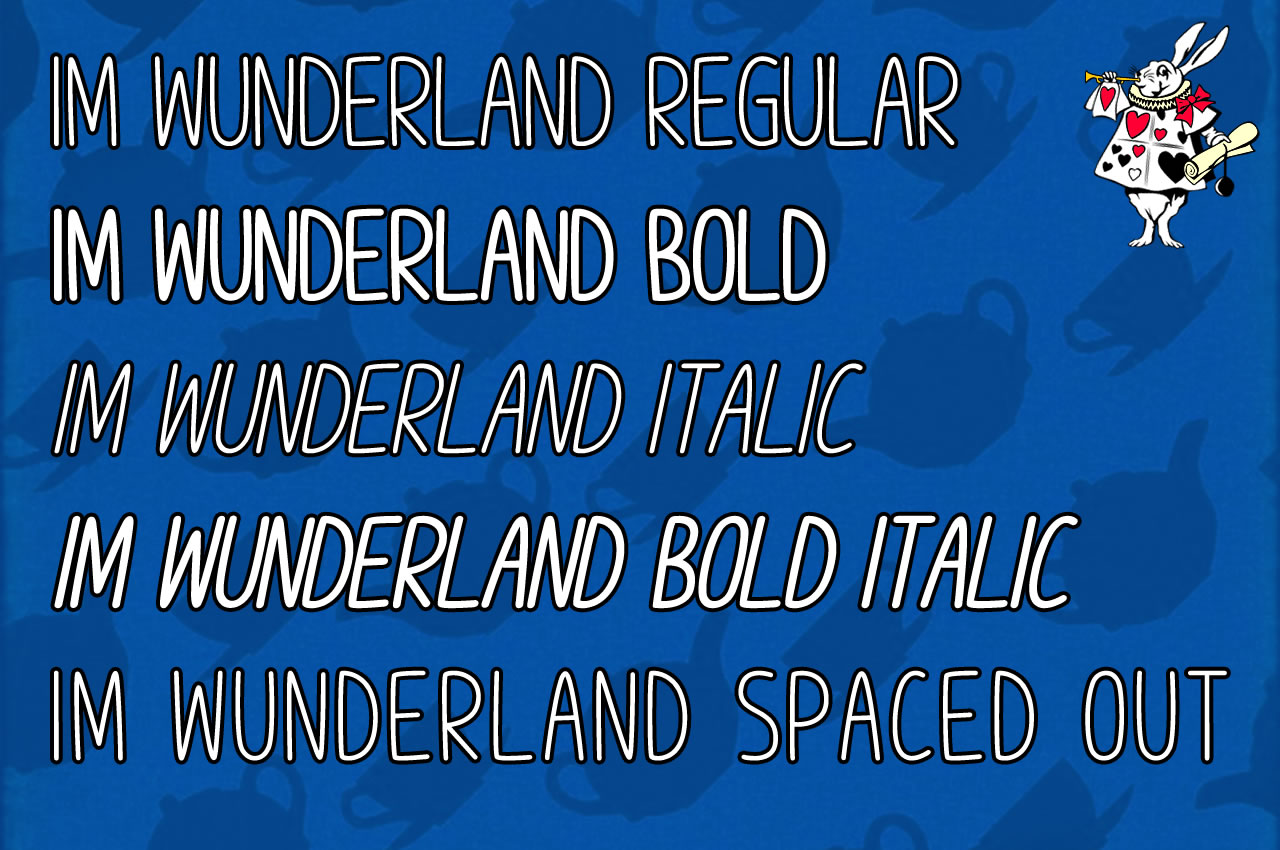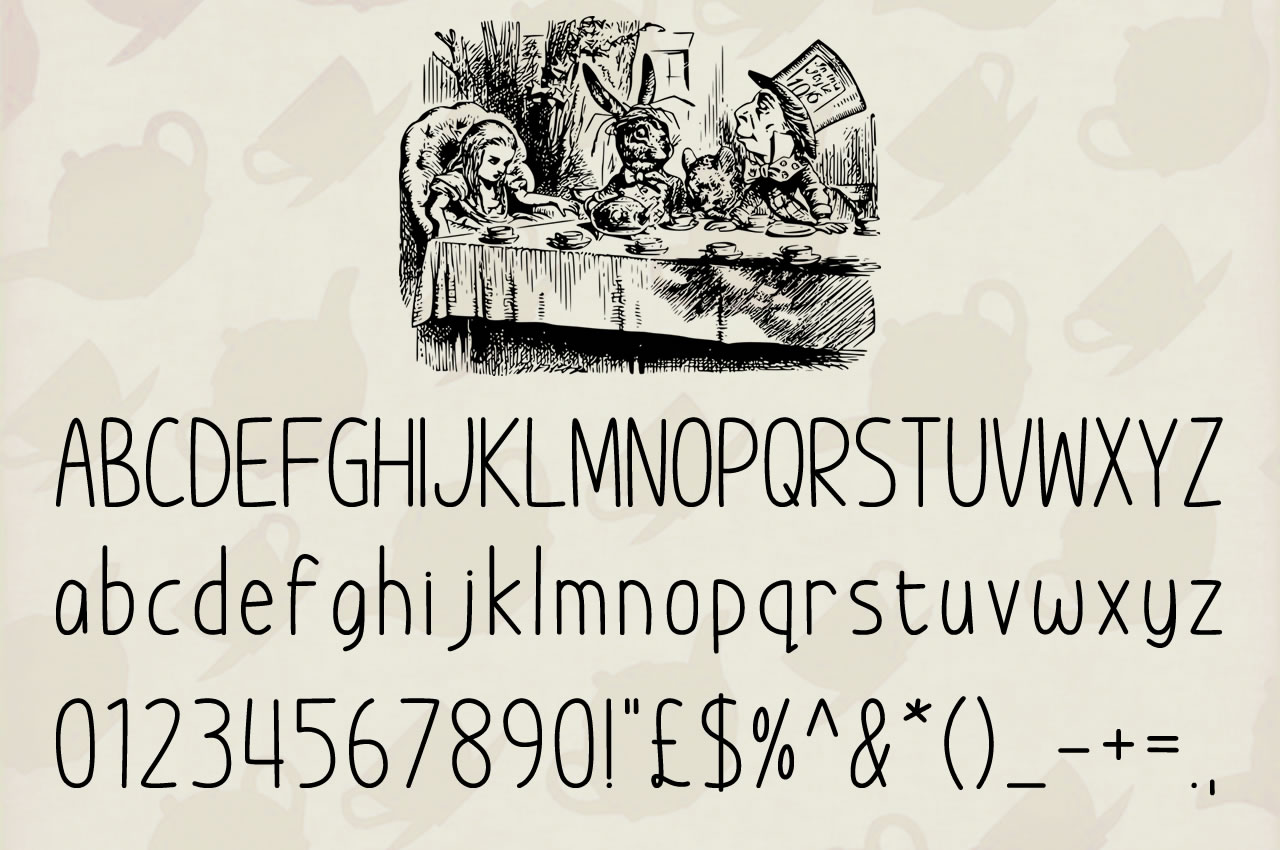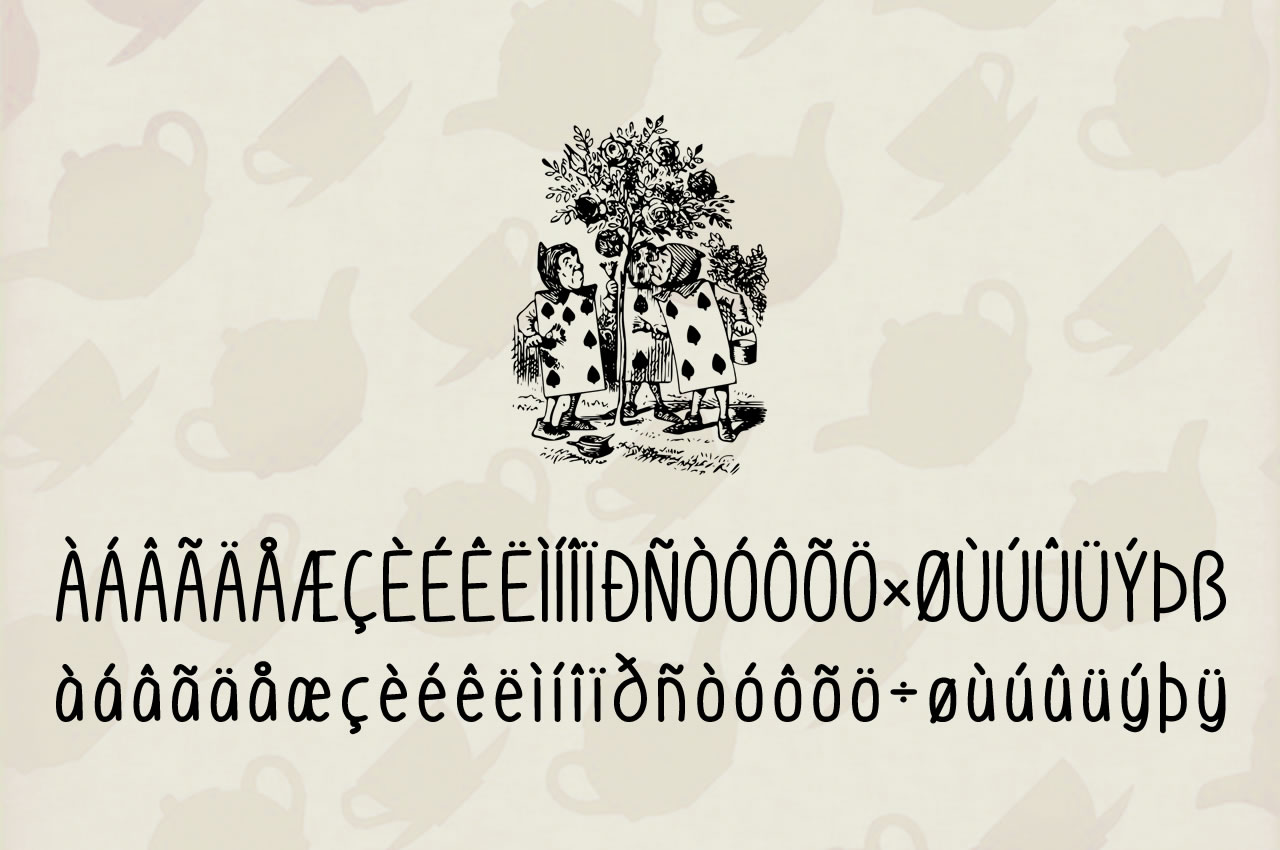
Introduction to Im Wunderland Font
Im Wunderland is a complete font family of different weights and styles, perfect for projects that require a cute little handwritten finish.
Key Features of Im Wunderland Font
Why Choose Im Wunderland Font?